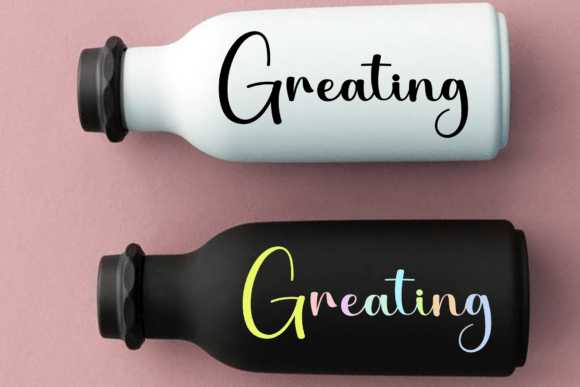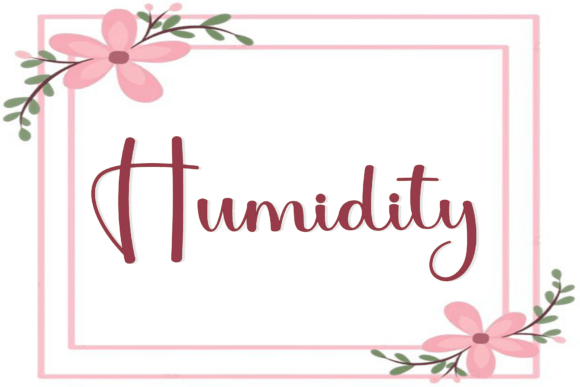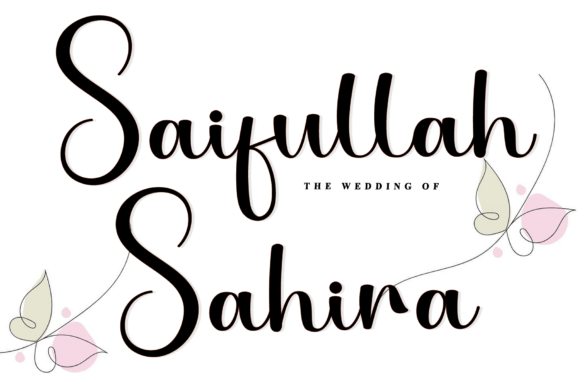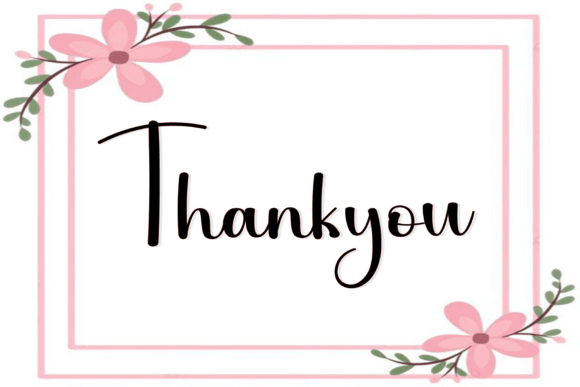
The Ultimate Guide to Anytime Healthy Font: Elevate Your Designs with Timeless Elegance
I’ll never forget the moment I stumbled upon the perfect font for a client’s branding project. It was like a breath of fresh air – the design came alive, and my client’s eyes lit up with excitement. That’s exactly what the Anytime Healthy font did for me. As a designer, I’ve always been on the lookout for fonts that can add a touch of personality and sophistication to my work. And, trust me, Anytime Healthy delivers! 🎉
A Personal Review: What I Love About Anytime Healthy
Anytime Healthy is a lovely and timeless handwritten font that’s perfect for creating eye-catching logos, branding, and quotes. Here are some things I absolutely love about it:
• ✨ Unique and beautiful touch: Every letter has a distinct character that adds a personal touch to your designs.
• ✅ Versatile: Works perfectly for a wide range of design projects, from logos and branding to quotes and social media graphics.
• ✨ Easy to read: Despite its unique touch, the font remains highly legible, making it perfect for body text and titles.
While Anytime Healthy is an amazing font, there are a few minor quirks to keep in mind:
• ⚠️ Limited availability of stylistic alternates: While the font does offer some alternatives, it’s not as extensive as some other fonts on the market.
• 🤔 May not work well with very short texts: Due to its handwritten nature, the font might not be the best choice for very short texts or headings.
The Designer Inspiration Behind Anytime Healthy
Anytime Healthy was designed with the goal of creating a timeless, elegant font that would add a personal touch to any design project. The designer, who wishes to remain anonymous, drew inspiration from classic handwritten fonts and infused them with a modern twist. The result is a font that’s both elegant and approachable, perfect for a wide range of design applications.
Q: What is Anytime Healthy font?
Anytime Healthy is a lovely and timeless handwritten font that’s perfect for creating eye-catching logos, branding, and quotes.